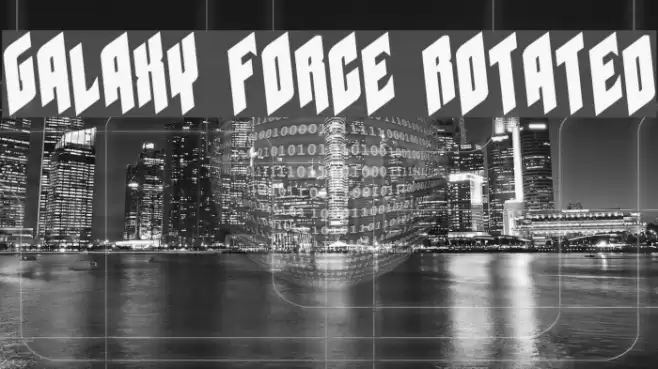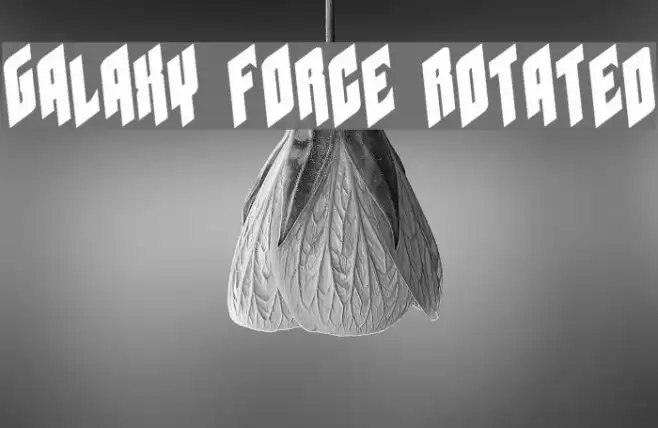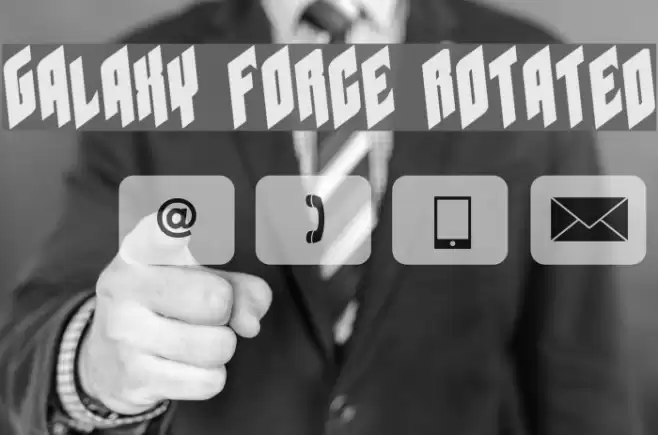
Galaxy Force Rotated Font
Galaxy Force Rotated Description
This font features a bold, angular design with a futuristic and dynamic appearance. The characters are sharply cut, with a distinct slant that gives a sense of motion and energy. The uppercase and lowercase letters maintain a consistent style, emphasizing sharp edges and geometric forms. The numbers and special characters follow the same aesthetic, ensuring uniformity across all glyphs. This font's aggressive and bold nature makes it stand out, ideal for projects that require a strong visual impact.
A bold, angular font with a futuristic and dynamic style from Uncategorized fonts.
- Proposed Projects: Ideal for sci-fi themed designs, video game titles, posters, and branding that requires a strong, energetic presence.
- Overall Style: Futuristic, Dynamic